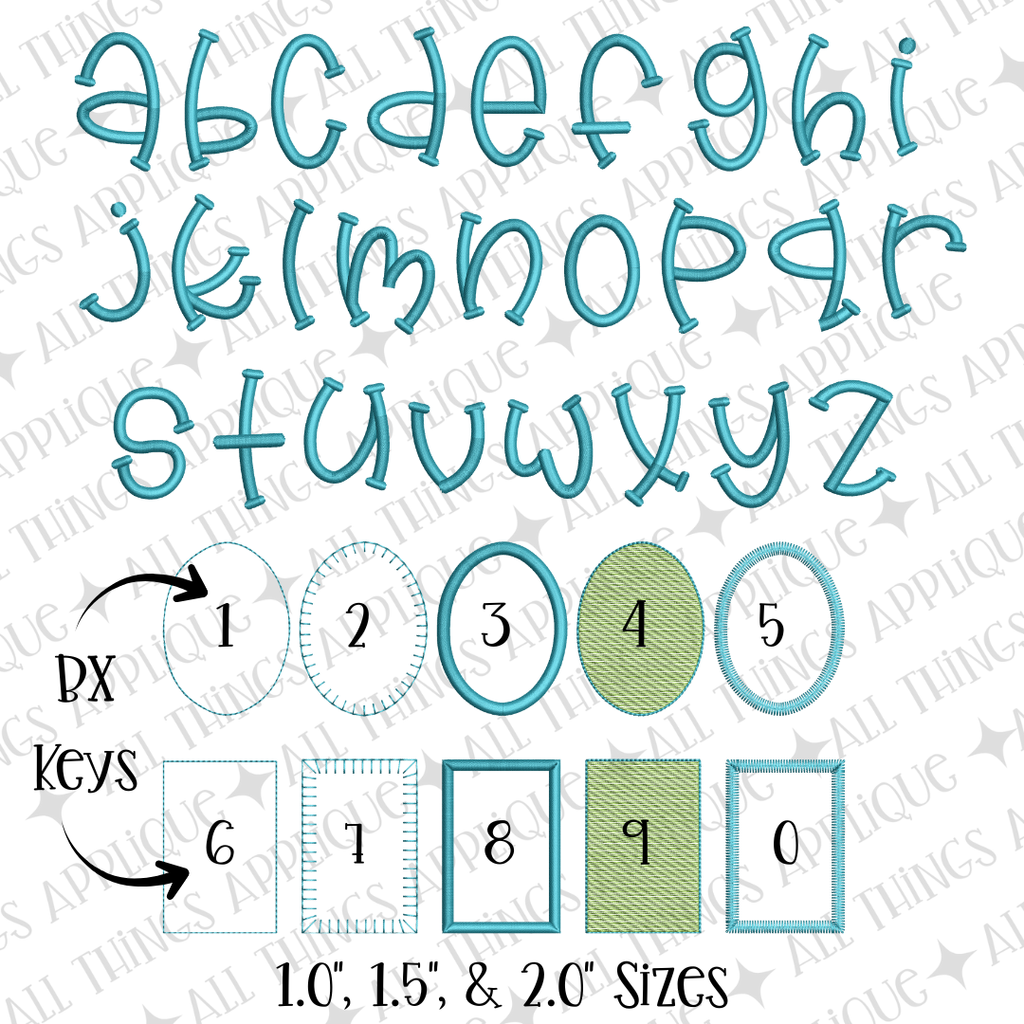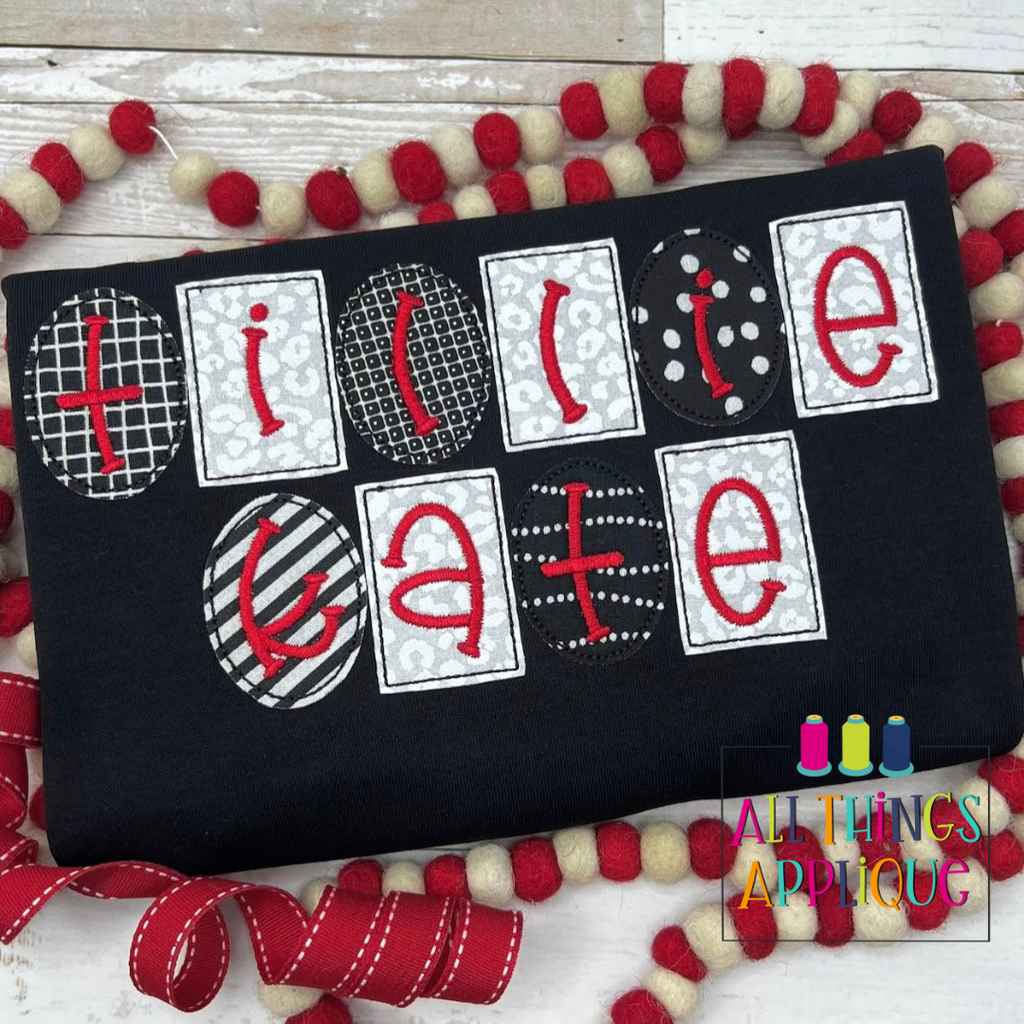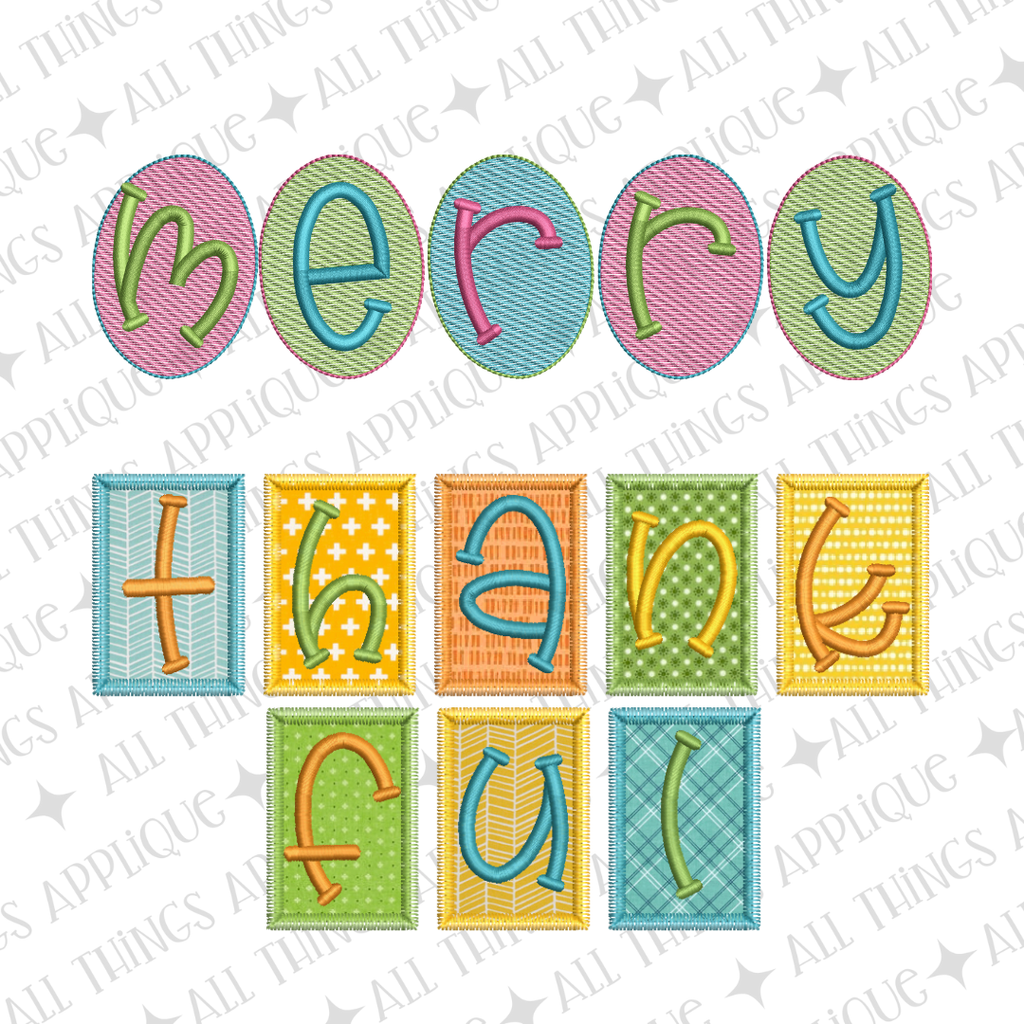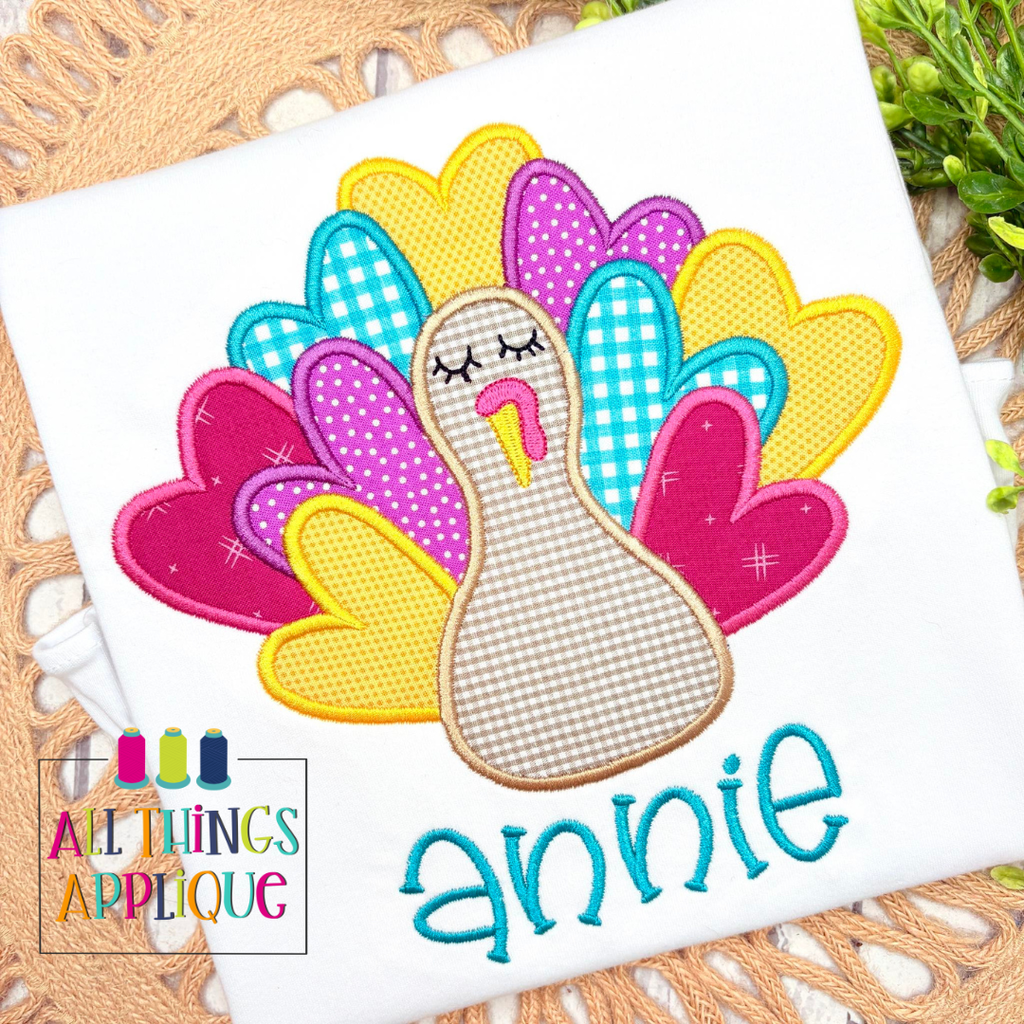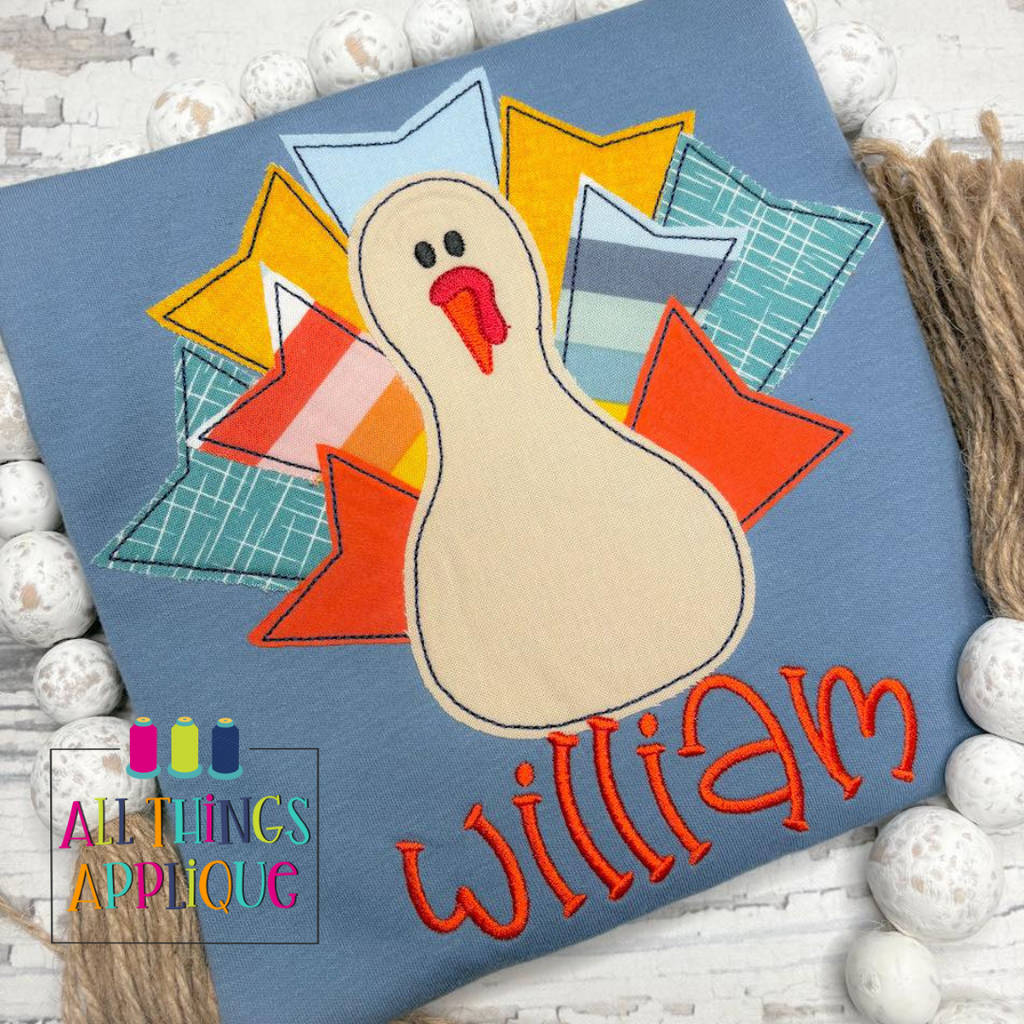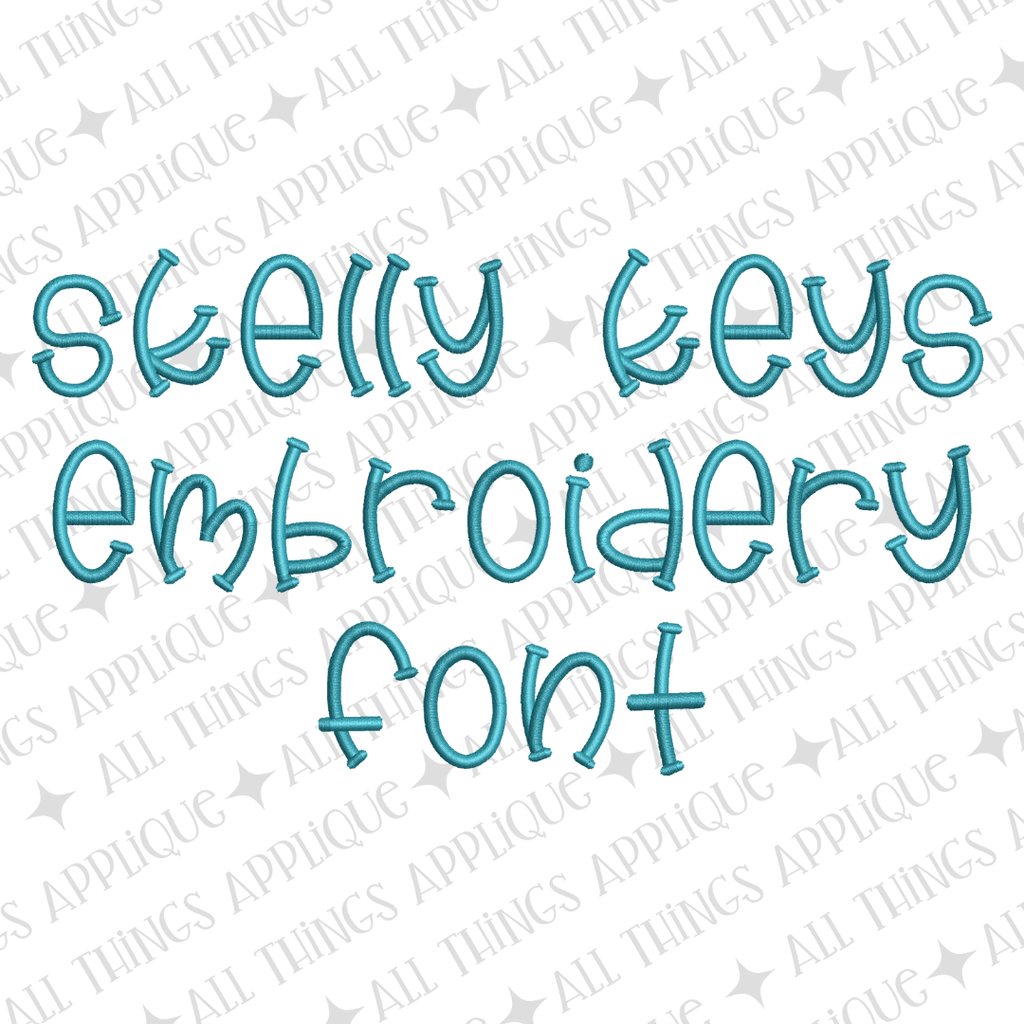
About the Skelly Keys Embroidery Font
Bring spooky-chic style to your stitching projects with Skelly Keys Embroidery Font! This whimsical typeface features charming letters paired with playful background shapes, perfect for personalizing fun fabric swatches with names and custom touches. Whether you're decorating Halloween décor, creating quirky gifts, or adding personality to everyday items, this font makes it easy to stitch memorable designs. Let your creativity run wild with a font that's equal parts spooky and delightful!
This font includes 26 satin stitch letters as well as 5 ovals and 5 rectangles in various stitch styles.